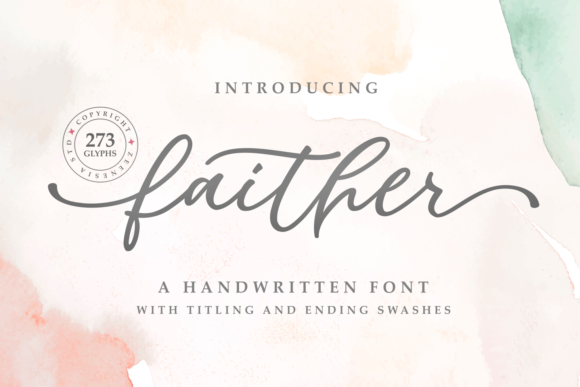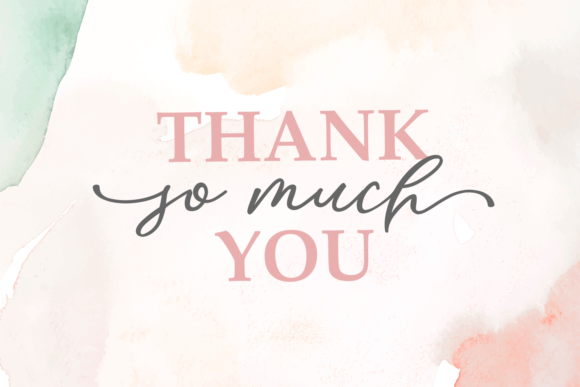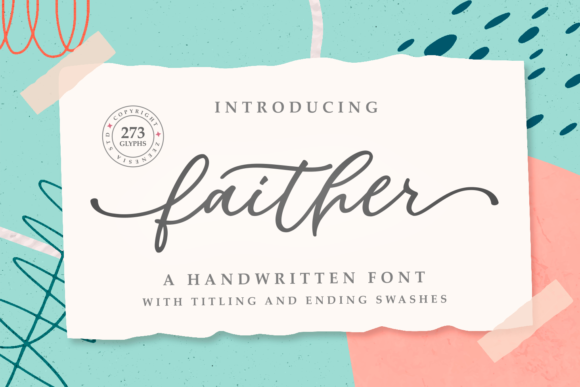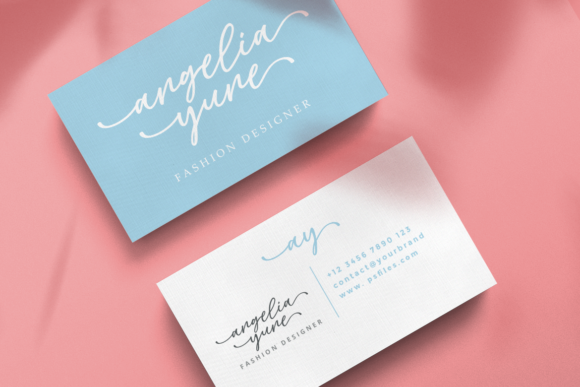
About Faither Font
Faither is a handwritten font with titling and ending swashes. This graceful script font is a perfect match to create gorgeous wedding invitations, beautiful stationary art, eye-catching social media posts, and more!